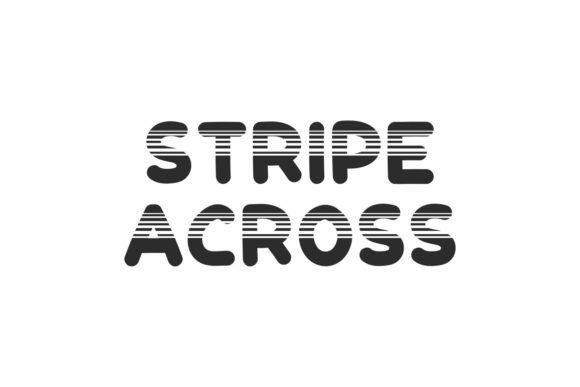
**Stripe Across: The Captivating Display Font That Sparks Imagination**
Journey into a world of whimsical joy with Stripe Across, the display font that captivates hearts and ignites creativity. Inspired by the carefree spirit of children, this font weaves a vibrant tapestry of imagination, making it the perfect choice for any project that seeks to evoke a sense of wonder and playfulness.
Stripe Across dances across the page with its unique and eye-catching design, featuring multiple lines adorning the top of each letter, resembling a lively traffic lane system. This dynamic effect adds a touch of whimsy and movement to your text, drawing attention and creating a lasting impression.
Whether you're crafting a captivating website for a children's brand, designing delightful stationery for a bakery, or creating an enchanting invitation for a birthday party, Stripe Across is the font that will elevate your project to new heights. Its versatility knows no bounds, extending its charm to a myriad of industries, including:
- Baby products that evoke a sense of innocence and joy
- Bakeries that exude the warmth and sweetness of freshly baked goods
- Cafés that invite patrons to linger over aromatic brews and delectable pastries
- Fashion brands that embrace individuality and style
- Homeware that transforms living spaces into cozy havens
- Party events that promise unforgettable moments of laughter and celebration
- Restaurants that create a welcoming and playful ambiance
- Schools that foster creativity and inspire young minds
- Snack brands that bring joy to every bite
- Toy companies that capture the magic of childhood
- Writers who seek to weave tales that ignite imaginations
With Stripe Across, you're not simply downloading a font; you're embarking on a journey where creativity flourishes and imagination takes flight. Whether you're a seasoned designer or just starting to explore the world of fonts, Stripe Across is the perfect tool to add a touch of magic to your projects.
Your words will come alive, imbued with a captivating charm that resonates with audiences of all ages. Stripe Across is more than just a font; it's a gateway to a world where anything is possible. So, dive into the whimsical world of Stripe Across today and let your creativity soar!